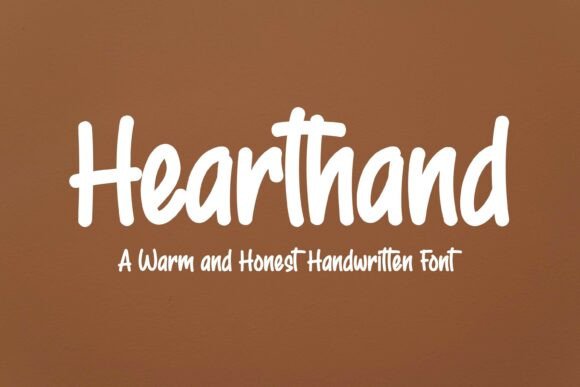
Hearthand Font: A Casual Handwritten Font for Personal Touch
In the world of typography, fonts play a crucial role in conveying the tone and personality of a brand or design. Among the numerous fonts available, Hearthand stands out as a casual handwritten font that adds a personal touch to every project. With its rounded edges and honest strokes, Hearthand brings a warm and welcoming tone to any design, making it an ideal choice for various applications.
What is Hearthand Font?
Hearthand is a carefully crafted handwritten font that exudes a sense of approachability and genuineness. Its unique characteristics make it perfect for designs that require a personal touch, such as quote posters, product packaging, handwritten notes, journaling, and organic branding. The font’s rounded edges and honest strokes give it a distinctive feel that sets it apart from other fonts.
Key Features of Hearthand Font
- Casual and Handwritten: Hearthand has a casual and handwritten feel that makes it perfect for designs that require a personal touch.
- Rounded Edges: The font’s rounded edges give it a soft and approachable look.
- Honest Strokes: The honest strokes in Hearthand add to its genuine and authentic feel.
- Warm and Welcoming Tone: The font’s unique characteristics bring a warm and welcoming tone to any design.
Use Cases for Hearthand Font
Hearthand is a versatile font that can be used in various design applications. Some of the most popular use cases include:
Quote Posters
Quote posters are a great way to add inspiration and motivation to any space. Hearthand font is perfect for quote posters as it adds a personal touch and makes the quote more relatable.
Product Packaging
Product packaging is an essential aspect of branding, and Hearthand font can help add a personal touch to your packaging design. The font’s warm and welcoming tone can make your product stand out on store shelves.
Handwritten Notes
Handwritten notes are a thoughtful way to connect with others, and Hearthand font can make your notes even more special. The font’s casual and handwritten feel makes it perfect for writing letters, cards, or even journal entries.
Journaling
Journaling is a great way to express yourself and reflect on your thoughts and experiences. Hearthand font can add a personal touch to your journal entries, making them even more meaningful.
Organic Branding
Organic branding is all about creating a natural and authentic brand image. Hearthand font can help you achieve this goal by adding a warm and welcoming tone to your brand’s design.
Benefits of Using Hearthand Font
There are several benefits to using Hearthand font in your designs. Some of the most significant advantages include:
Unique and Authentic Look
Hearthand font has a unique and authentic look that sets it apart from other fonts. Its casual and handwritten feel makes it perfect for designs that require a personal touch.
Emotional Connection
The warm and welcoming tone of Hearthand font can help create an emotional connection with your audience. This can lead to increased brand loyalty and engagement.
Versatility
Hearthand font is a versatile font that can be used in various design applications. Its flexibility makes it a great choice for designers who need a font that can adapt to different contexts.
In conclusion, Hearthand font is a casual handwritten font that adds a personal touch to every project. Its unique characteristics, such as rounded edges and honest strokes, make it perfect for designs that require a warm and welcoming tone. With its versatility and emotional connection, Hearthand font is an excellent choice for designers who want to create authentic and engaging designs.